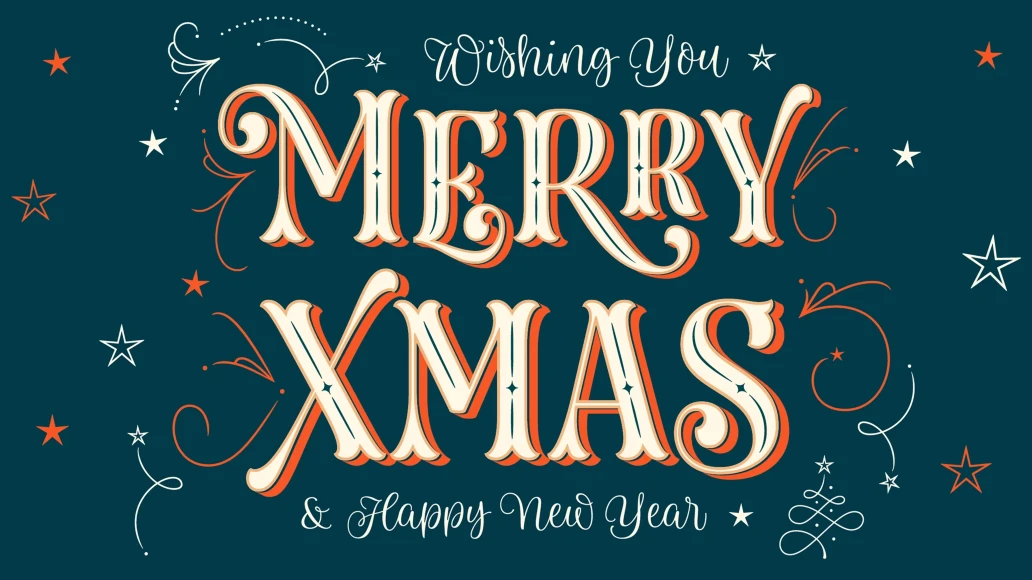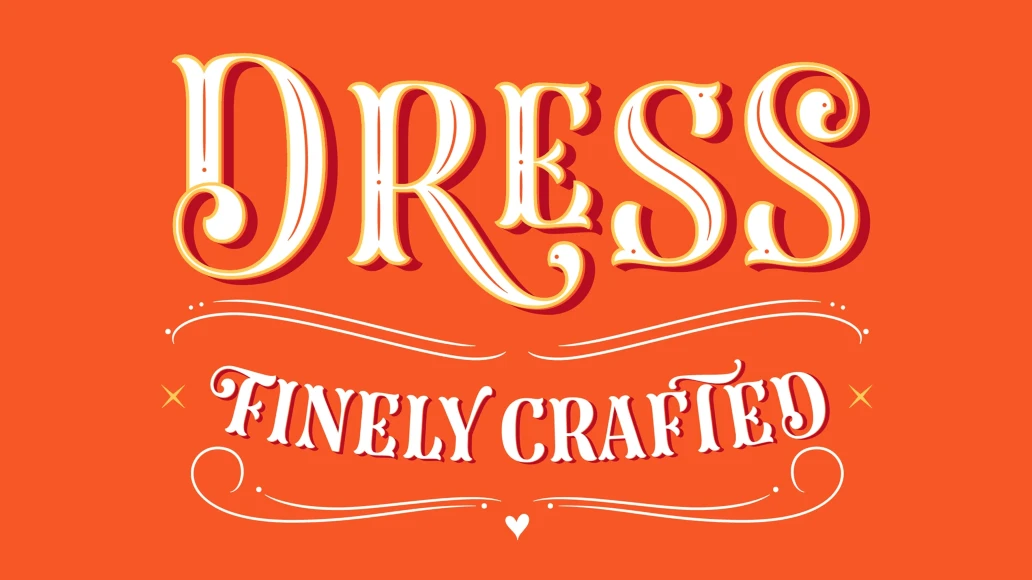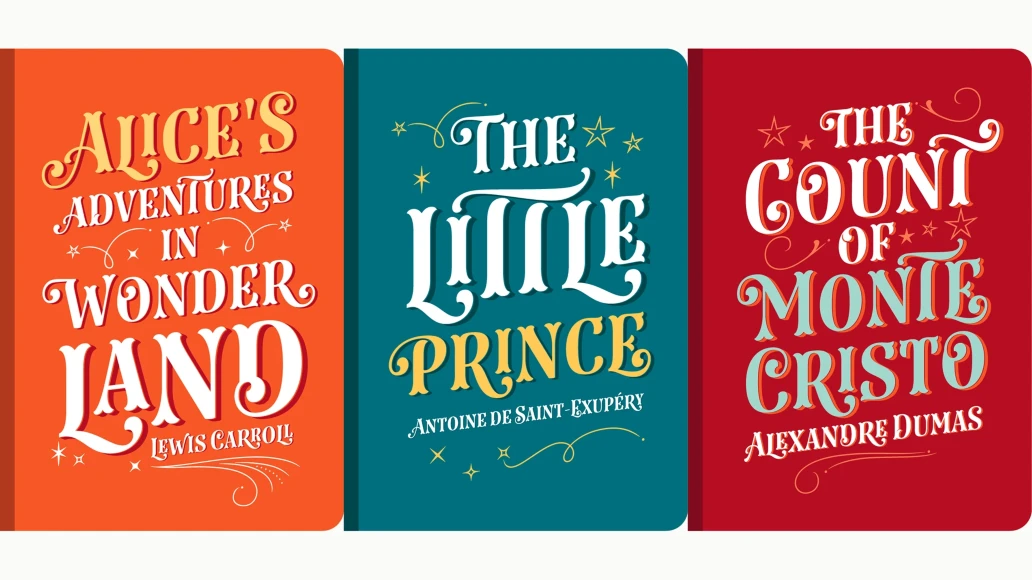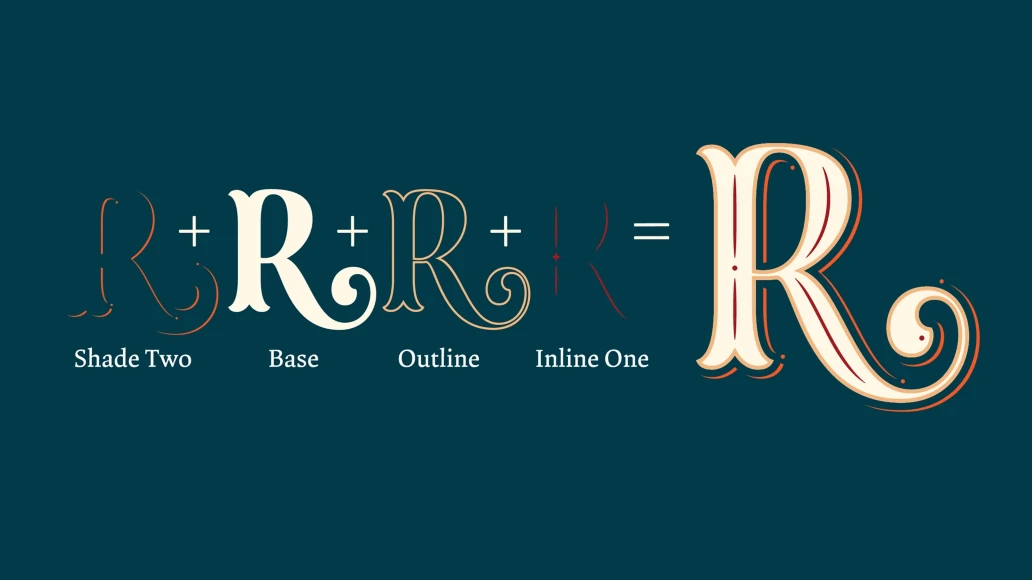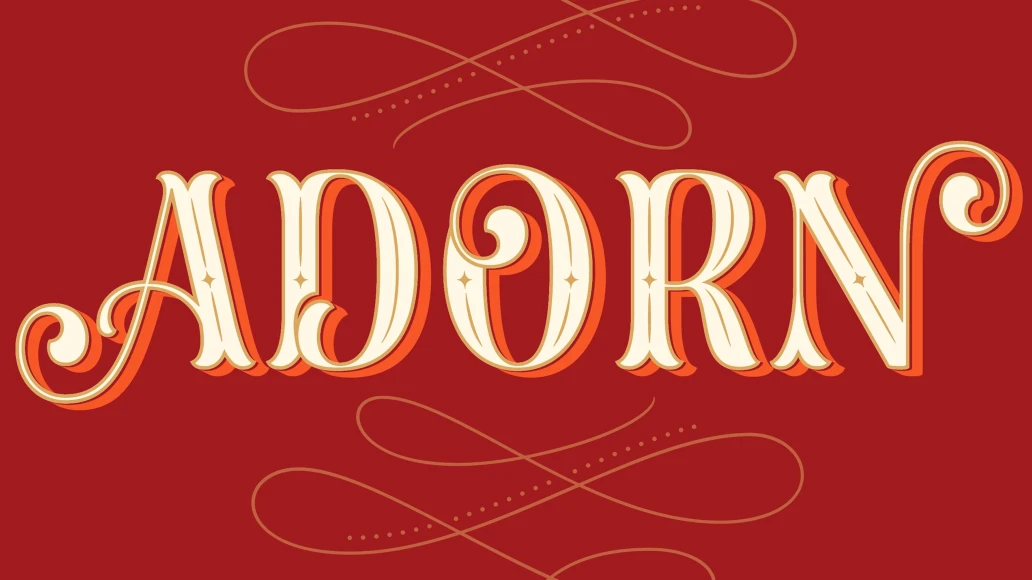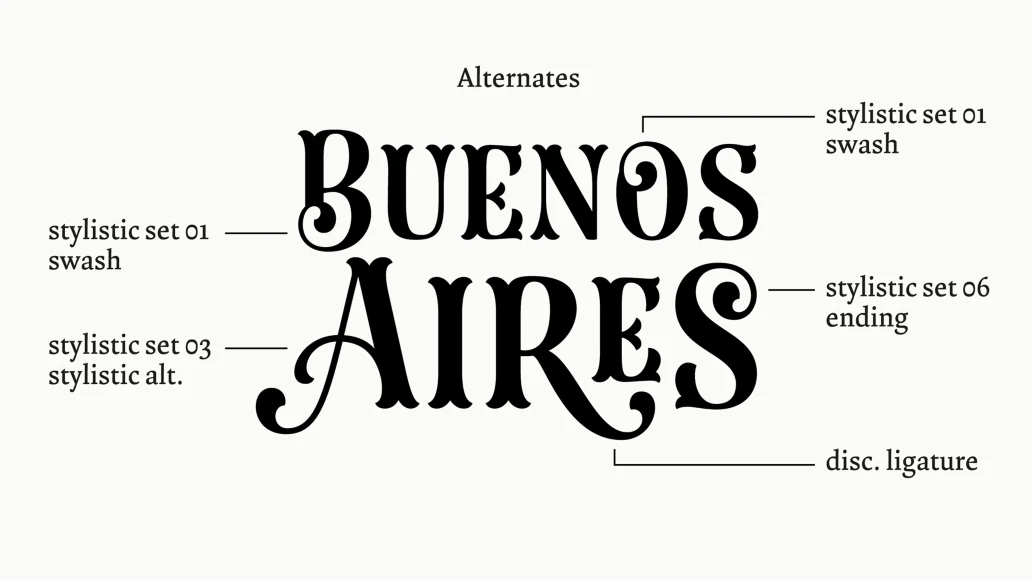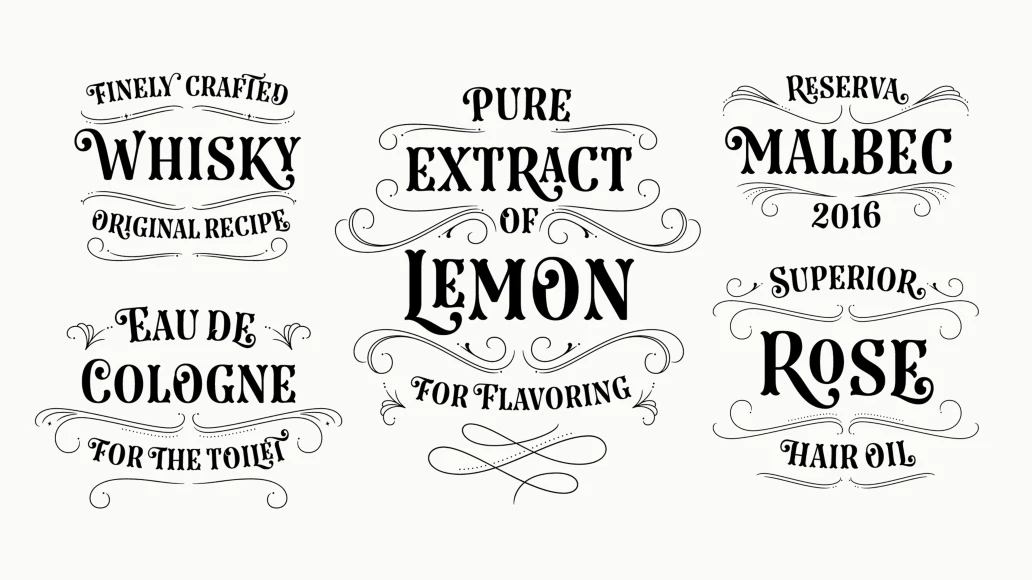
Dress
Influenced by the ornamented capitals found in late nineteenth century specimens, this layered font was designed to decorate publication covers, labels, stationery or any other piece that needs to be embellished. This family intends to dress any work.
Started up by the author’s hand, Dress is a professional work, accurate, well spaced, with ligatures and alternates for uppercases, initials, endings and figures. Each variable contains more than 1200 glyphs with plenty of OpenType features and extensive Western, Central and Eastern European language support. Use professional software that widely support Open Type features. Otherwise, you may not have access to some glyphs. For further information about features and alternates, see the User Guide
The main member of this family is the Base font which can be used alone or decorated with the layers: Shade One or Shade Two, Inline One or Inline Two and Outline. In this way, experienced designers will create their own combinations. On the other hand, there are multi-layered fonts that make Dress easier to use: Dress Combo One to Five. Additionally, Dress Deco adorns the beginning and the ending of the words, while the Ornaments decorates the whole design. The family package contains all this thirteen options.